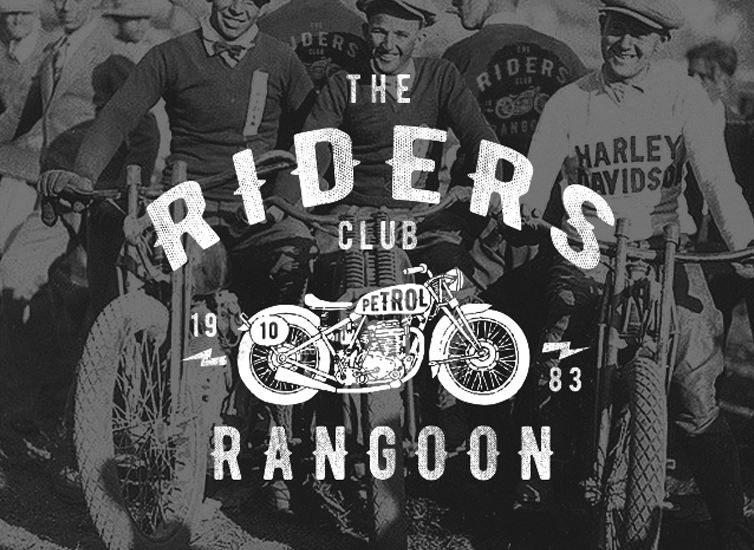
Bernier Font
Bernie truly one of a great and elegant font that will help you design logos, badges, printing commercial purposes for more than a few businesses that stand out from the gang.
Style Of Bernier Font